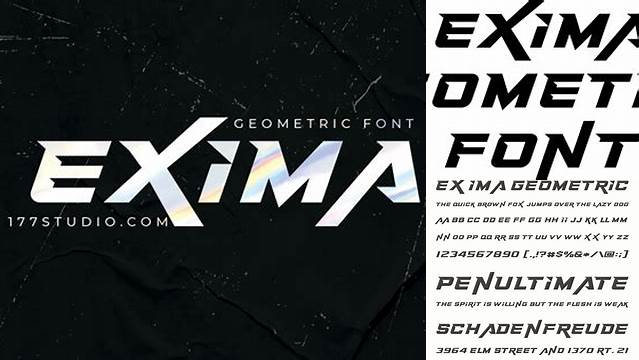
Hey guys! Are you on the hunt for a modern and clean font that will make your designs pop? Well, look no further! We're diving deep into the world of Exima, a fantastic geometric font that you can download for free. This typeface is perfect for a wide range of projects, from branding and logos to posters and website headers. So, let's get started and explore everything Exima has to offer!
What is the Exima Geometric Font?
Exima Geometric Font is a typeface characterized by its clean lines, geometric shapes, and modern aesthetic. It's a versatile font that can be used in various design contexts, thanks to its legibility and contemporary feel. When you’re thinking about the kind of font that screams sophistication and clarity, Exima should be right up there on your list. It's designed to be both eye-catching and easy to read, making it a favorite among designers who need a reliable and stylish option. Plus, the geometric nature of the font means it has a very structured and balanced look, perfect for projects that need a touch of professionalism.
Why Choose a Geometric Font Like Exima?
Choosing a geometric font like Exima Geometric Font can bring a modern and minimalist touch to your projects. Geometric fonts are known for their clean, precise shapes, which give them a contemporary and sophisticated look. This makes them ideal for designs that aim to convey clarity and simplicity. Imagine you’re working on a logo for a tech startup; the clean lines and geometric shapes of Exima can perfectly reflect the company’s innovative and forward-thinking approach. Geometric fonts are also incredibly versatile, working well in both headlines and body text, ensuring your design remains cohesive and readable. In short, Exima provides a balanced aesthetic that's both visually appealing and highly functional.
Exima Font Styles and Weights
One of the great things about the Exima Geometric Font is its versatility, which comes from the variety of styles and weights it offers. Different weights, like light, regular, bold, and extra-bold, can help you create visual hierarchy in your designs. For instance, you might use the bold weight for headlines to grab attention and the regular weight for body text to ensure readability. Styles such as italic or condensed can add further flair and distinction to your work. Whether you're aiming for a subtle, elegant look or a strong, impactful statement, the different styles and weights of Exima give you the flexibility to achieve your vision. This adaptability makes Exima a fantastic choice for a wide range of projects.
Exima Font vs. Other Geometric Fonts
When you're choosing a font, it's always a good idea to compare Exima Geometric Font with other geometric fonts to see how it stacks up. There are plenty of other great options out there, each with its own unique characteristics. Some might have a slightly different feel, like a more rounded or angular appearance, while others might offer a broader range of weights and styles. By comparing Exima with alternatives, you can get a better sense of its strengths and weaknesses and decide if it’s the perfect fit for your project. Maybe you’ll find that Exima's clean lines and modern aesthetic are exactly what you need, or perhaps another font’s particular style catches your eye. Either way, exploring your options is a smart move.
Exima Font for Logos and Branding
When it comes to creating a strong brand identity, choosing the right font is crucial, and the Exima Geometric Font can be an excellent option for logos and branding materials. Its clean, modern lines can give your brand a sophisticated and professional look. Think about it: a logo is often the first thing people see, so you want it to make a great impression. Exima’s geometric structure makes it highly legible and memorable, which is exactly what you want for your brand. It works well in various sizes, whether it's on a business card, website header, or a billboard. Using Exima in your branding can help convey a sense of trust and innovation, perfect for companies looking to establish a strong presence.
Using Exima Font in Web Design
In the world of web design, Exima Geometric Font shines as a versatile choice. Its clean lines and legibility make it ideal for website headers, body text, and navigation menus. A well-chosen font can significantly enhance the user experience on your website, and Exima is designed to be easy on the eyes, even when viewed on screens for extended periods. It also pairs well with various other fonts, giving you flexibility in creating a cohesive design. Whether you're designing a minimalist blog or a corporate website, Exima can help you achieve a professional and modern aesthetic. Remember, a readable and visually appealing font is key to keeping visitors engaged on your site.
Exima Font: Future Trends and Innovations
As the design world evolves, so too will typography, and keeping an eye on future trends and innovations can help you make the most of fonts like Exima Geometric Font. New technologies like variable fonts and AI-driven design tools are changing the landscape of typography. Trends towards minimalist and geometric designs suggest that Exima’s clean, modern aesthetic will remain relevant. Experimenting with new techniques, such as kinetic typography and interactive font styles, can push the boundaries of what’s possible with Exima. Staying informed about these developments can help you create cutting-edge designs that stand out.